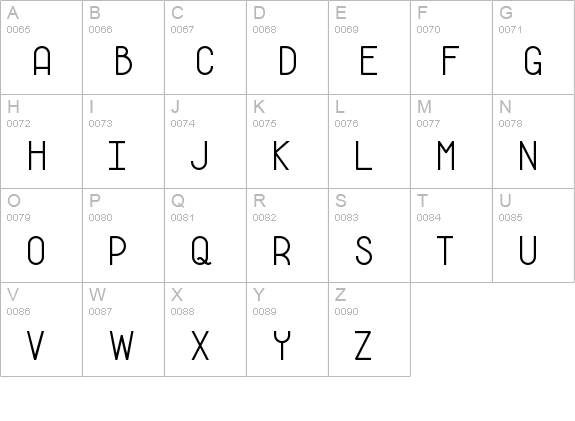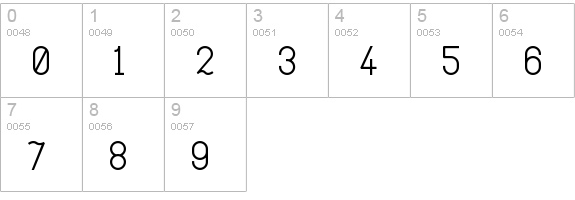
Bino Mono font is a sleek and modern monospaced typeface that combines elegance with functionality. Its clean lines and sharp edges make it perfect for a variety of design projects, from coding to graphic design. The font's simple yet sophisticated style ensures readability and versatility, making it a must-have for any designer or developer looking to add a touch of sophistication to their work. Best of all, Bino Mono font is completely free to download at FontsMarket.com. This means you can enhance your projects with this stylish typeface without breaking the bank. Whether you're working on a website, a poster, or a logo, Bino Mono font has got you covered. Download it today and take your designs to the next level with this fantastic free resource.